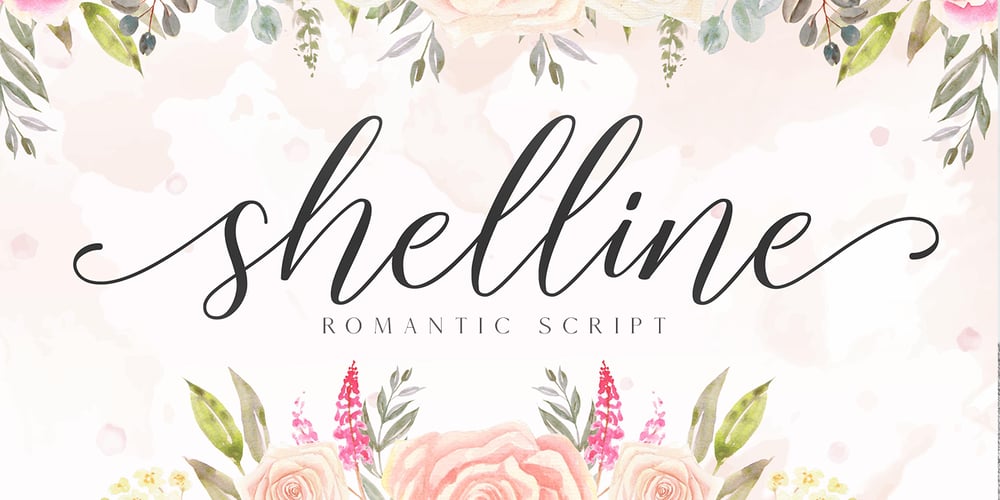
Shelline Font Family was designed by Abdul Malik Wisnu and published by Almarkha Type. Shelline contains 2 styles and family package options. Welcome to the new Romantic script font, Shelline. This is a modern script with a delicious flow, snap-perfect characters and start & end swash. With its alternative character, you will immediately get an original handmade look. Become the perfect professional in a minute and start creating modern designs such as advertising, sales, logos, branding, posters, social media text overlays today!